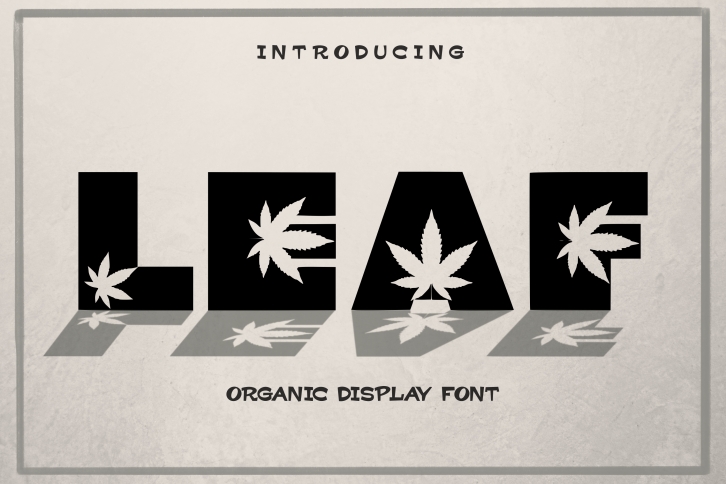
Leaf is a bold and thick lettered display font that was decorated with marijuana leaf. This original look will appeal to a wide range of crafty ideas, from letterheads and titles, to stationery.